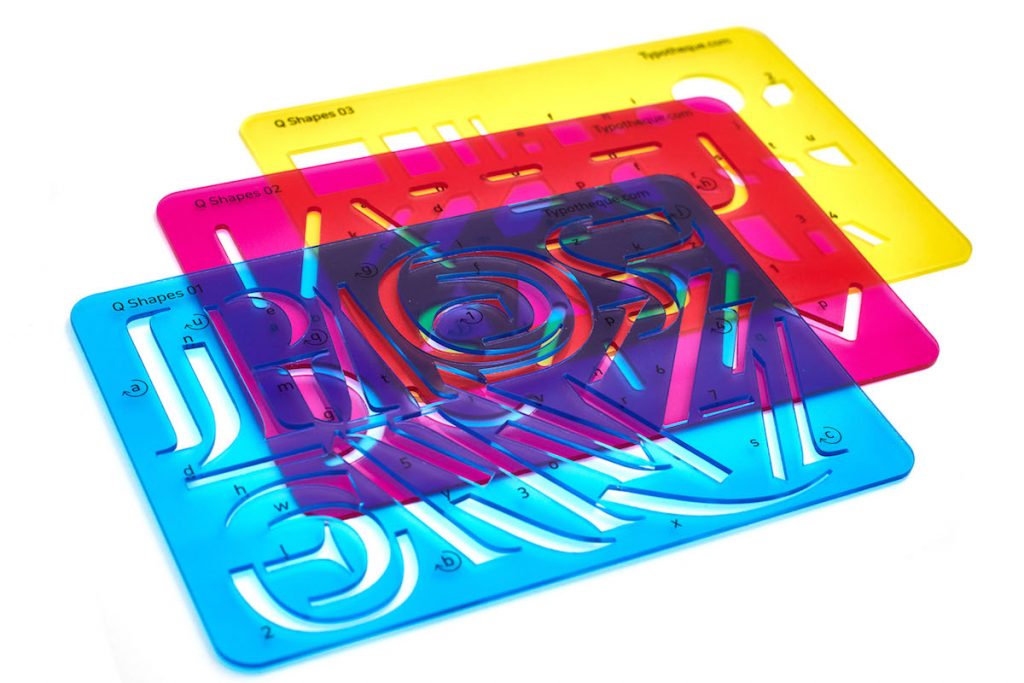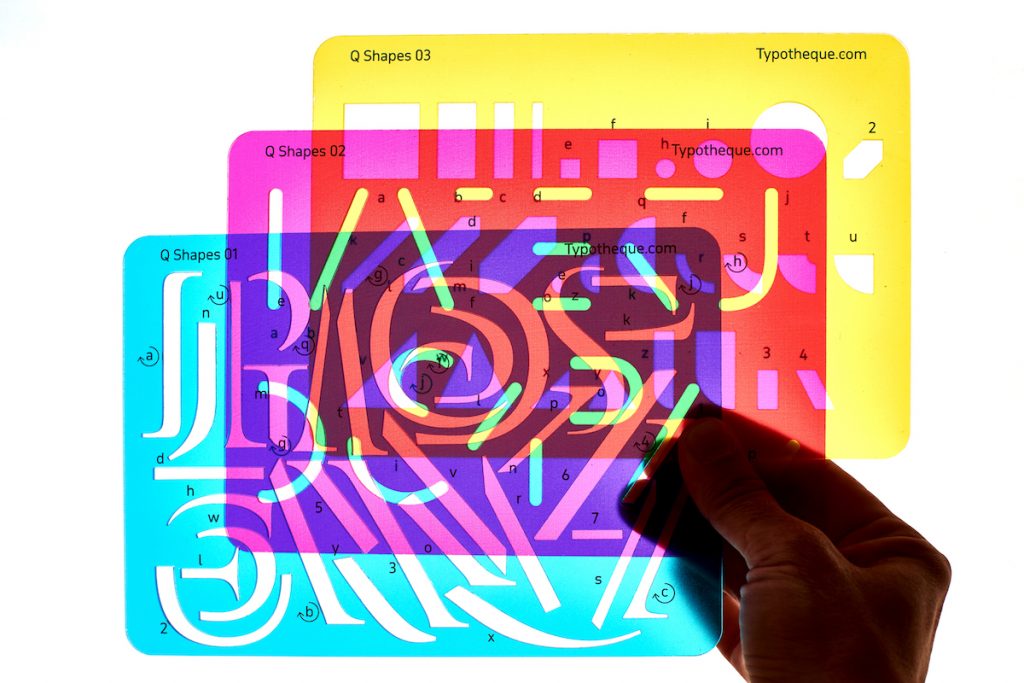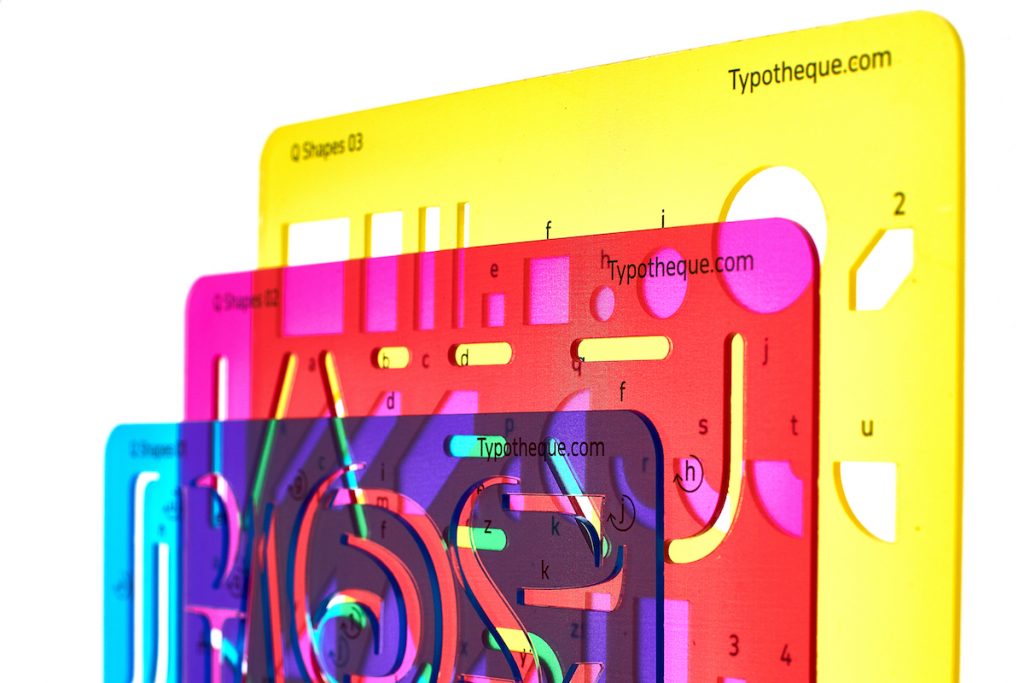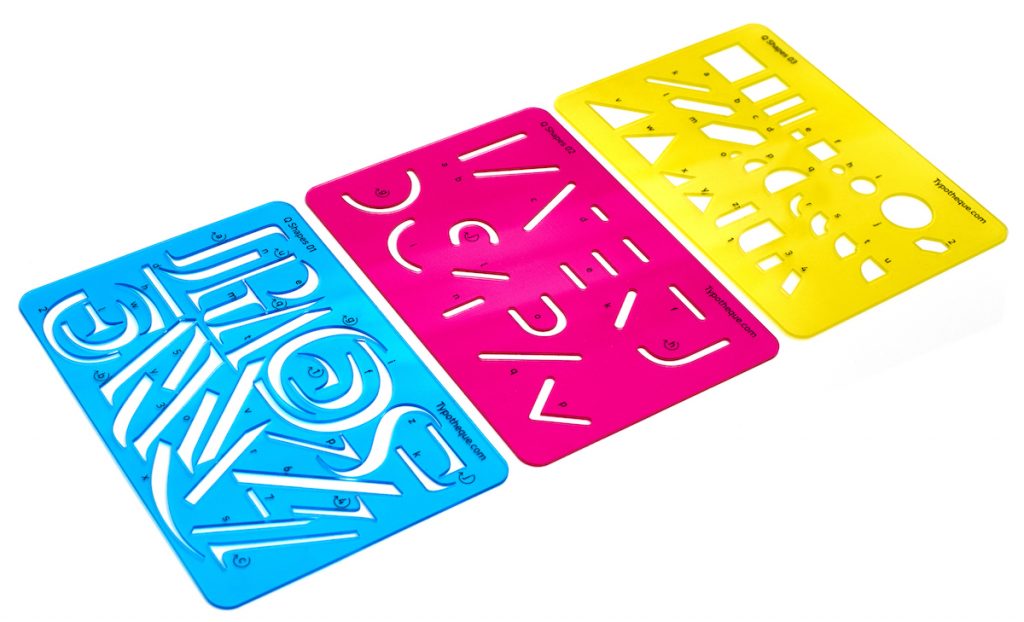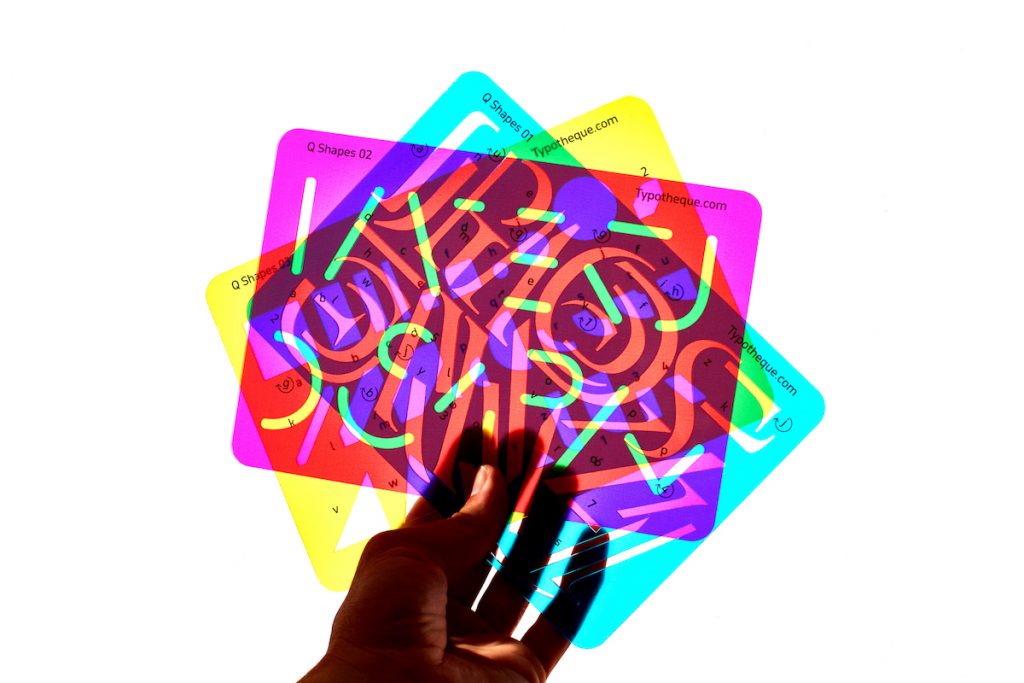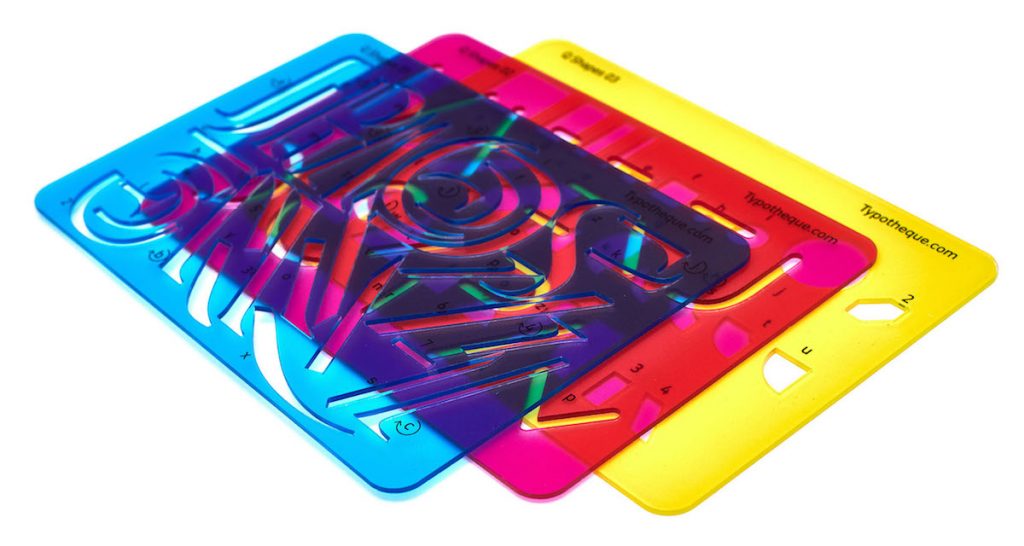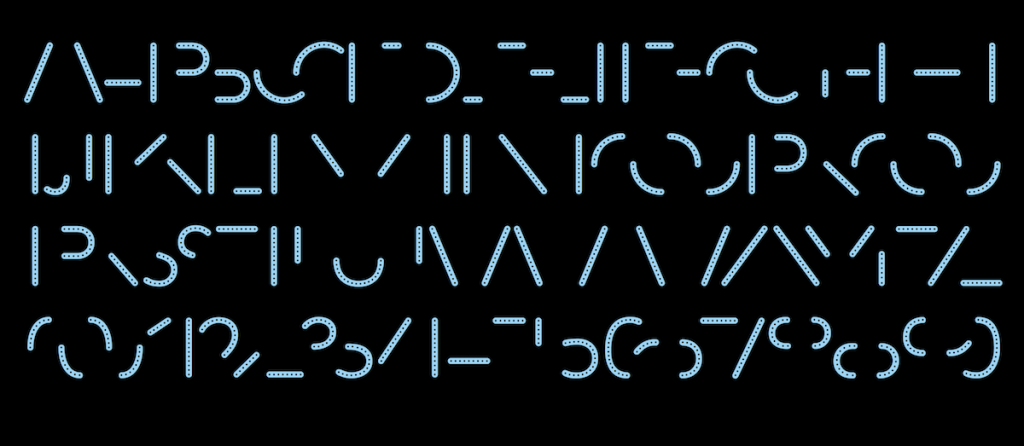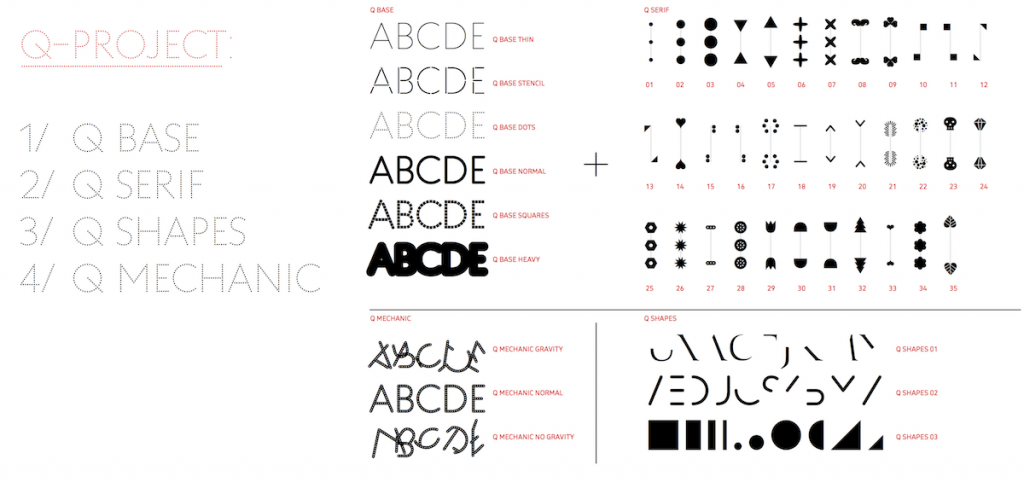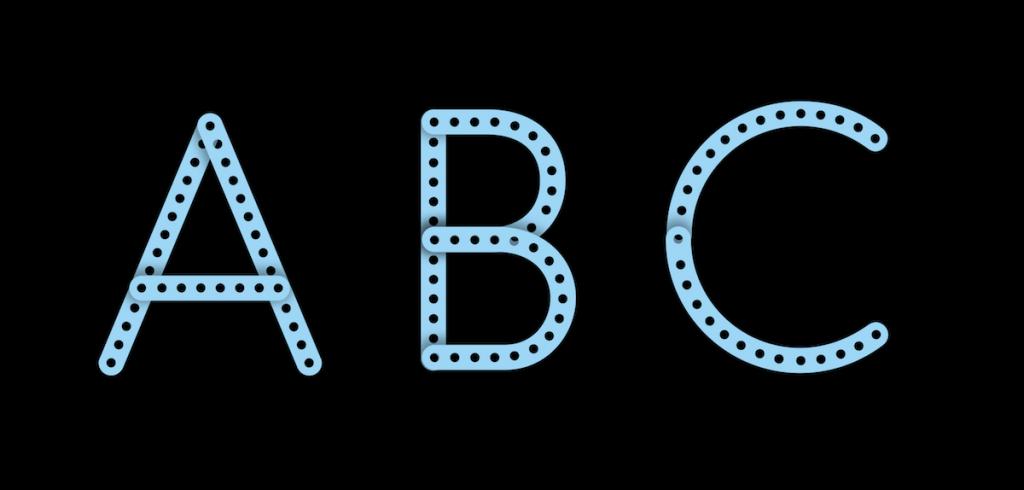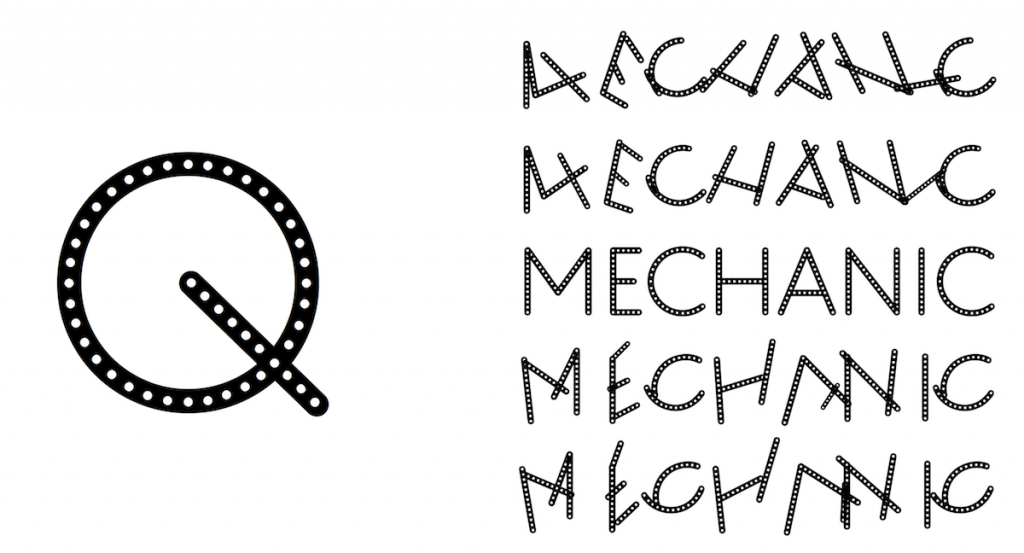
Name: Q
Foundry: Typotheque
Designer: Peter Bil’ak
Release Date: June 2020
Back Story: The Q project is something of an unusual type system to say the least. Whereas most of our Type Tuesday featured fonts come as full, downloadable typefaces, Q is a kit of parts. As Typotheque puts it, Q is a “type system that enables users to create a nearly infinite number of variations.” Essentially, it’s a set of variable fonts that can be used for animation. It’s inspired by the idea of play, and in particular, children’s games such as Lego or Meccano “that allow creating something that never existed before,” as the font’s designer, Peter Bil’ak, puts it.
The seed of the idea for Q came a while back, in 2015, when the designer was asked to propose a new logo for The Met. The sketches he made ended up not being used, but went on to inform some of the designs for the Q project. “I knew I wanted to take it further and create some sort of type system,” says Bil’ak. “I had been sketching a lot, and after variable fonts technology was introduced in 2016, I started exploring how I could bring elements of time, for animation, to the project. I didn’t want to make it about technology, but about the space that can be explored.”
Why’s it called Q? The name was decided in step Bil’ak’s usual naming system, which is inspired by the “Opus number” in musical compositions, wherein each piece is assigned a number based on the chronological order with which they were created. Since 1995, Bil’ak has similarly been naming his typefaces alphabetically, so that Eureka (1995) was followed by Fedra (2001), Greta (2007), History (2008), Irma (2009), Julien (2010), Karloff (2012), Lava (2013), and so forth. His last typeface was named Ping (2019), so “the next one should logically start with a ‘Q’,” he says. “After studying dictionaries, and making long lists of names, I finally used our working code name, which was as open as the idea of the project.”
What are its distinguishing characteristics? Take a deep breath—it’s a complicated one. Q consists of six uppercase base fonts plus 35 attachments that can be added as individual layers (Q Base and Serifs). It also comes with a variable font with a motion axis (Q Mechanic), as well as three levels of basic shapes that can be combined into new forms (Q Shapes). The base fonts and the attachments are available as sets of fonts which share vertical and horizontal metrics so that they can be combined and layered. Once color comes into the equation, Bil’ak says “a nearly infinite number of variations” are possible. The base layers can also be combined to produce layering effects.
Q Mechanic is a separate font that combines two bases, Q Normal and Q Dots. Using OpenType’s Discretionary Ligatures feature in an unusual way, the font replaces single glyphs with multiple substitutions to break the letters into pieces.
When you purchase the typeface, you also get physical drafting stencils for learning to draw the basic shapes that make up the Latin alphabet, along with online interfaces that help to create modular type constructions using the letterforms.
What might it be used it for? The Q system was designed to allow for people to create experimental, playful pieces with results that were unintended. “Q is designed like an open-ended system that doesn’t make any assumption of the desirable outcome,” says Bil’ak. “That’s why I compared it to Lego, or other games.” As such, the system comes with a free online interface so users can generate their own PDF designs.
Books might be a good bet, though: Brazilian designer Tereza Bettinardi was asked by the Typotheque team to design some sample covers for a series of books of her choice, which look ace. Her work also suggests that Q might be a great choice for applications like record covers, posters, or pretty much anything in which the type does most of the talking in a layout.
What other typefaces do you like to pair it with? “Q is designed for expression, not legibility,” says Bil’ak, so when a design calls for some level of text-based functionality it would be wise to opt for a subtle, unobtrusive font. The designer suggests Typotheque’s aptly titled Neutral.